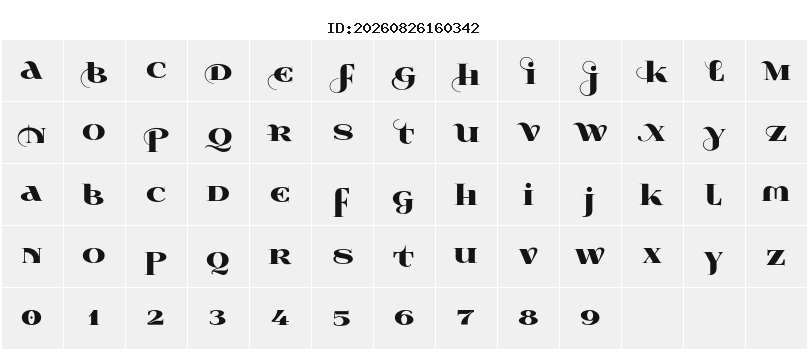
Wabroye Preview
• Font Name: Wabroye
• Designer: gluk
About Wabroye.otf
Wabroye.otf is a modern, elegant sans-serif font designed for ultimate readability and visual harmony. Perfect for branding, headlines, web design, and print materials.